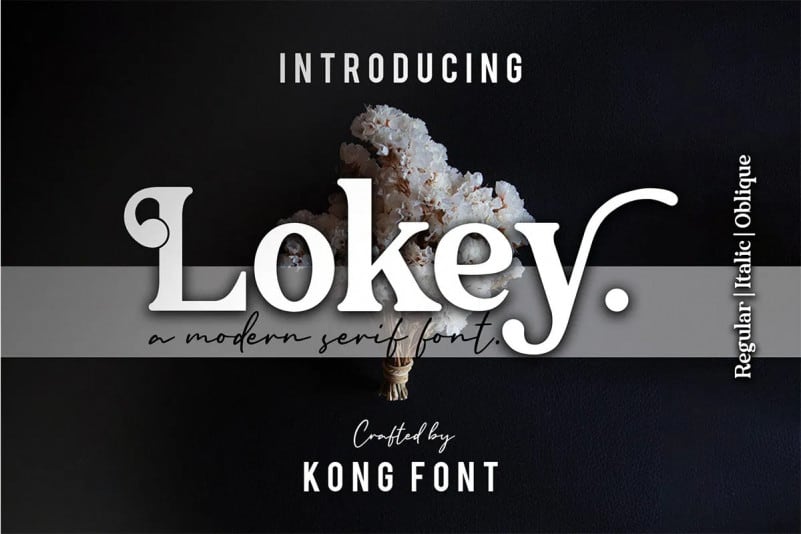
Lokey Serif Font
Lokey Serif Font is a classy modern serif typeface. A beautiful bold serif specially designed for display. Inspired by modern fashion and classic typography, this font equipped with hundreds of alternative characters and ligatures.
Lokey represented luxurious, elegant, glamour, fashion, and wealthiness. This font works perfectly for logotype, invitation, cards, magazine, apparel, fashion, lifestyle, poster, social-media kit, and many more!